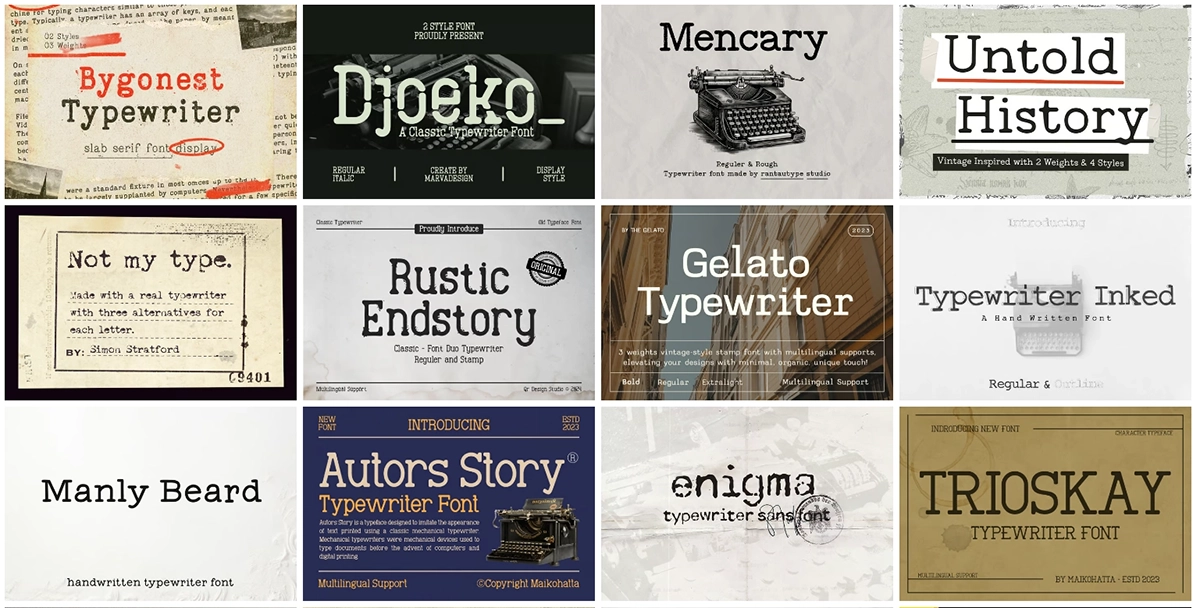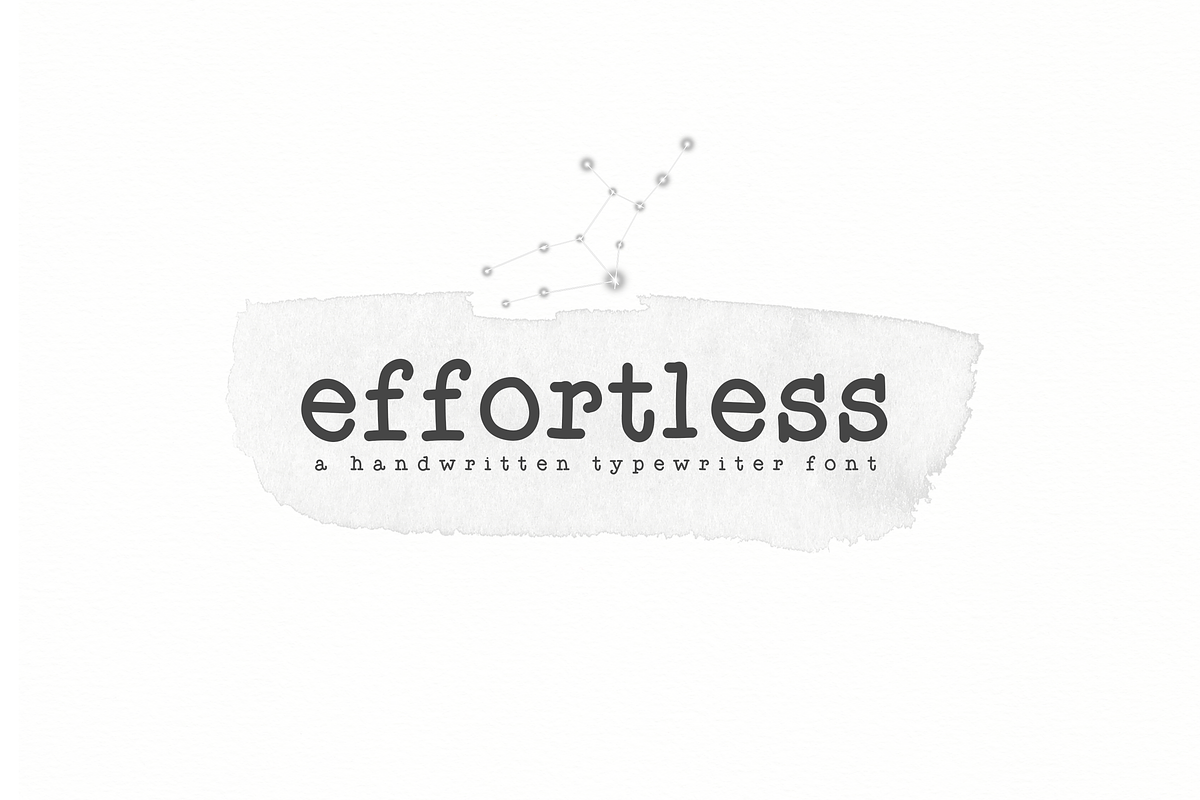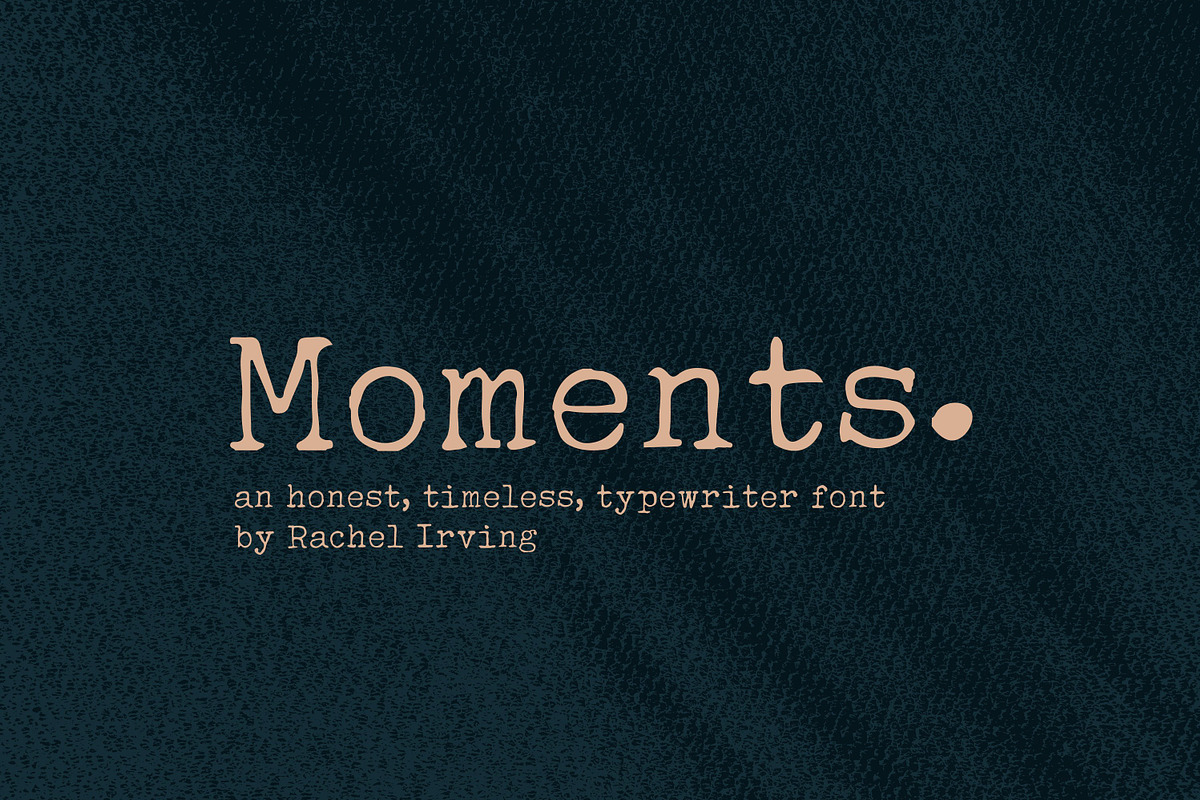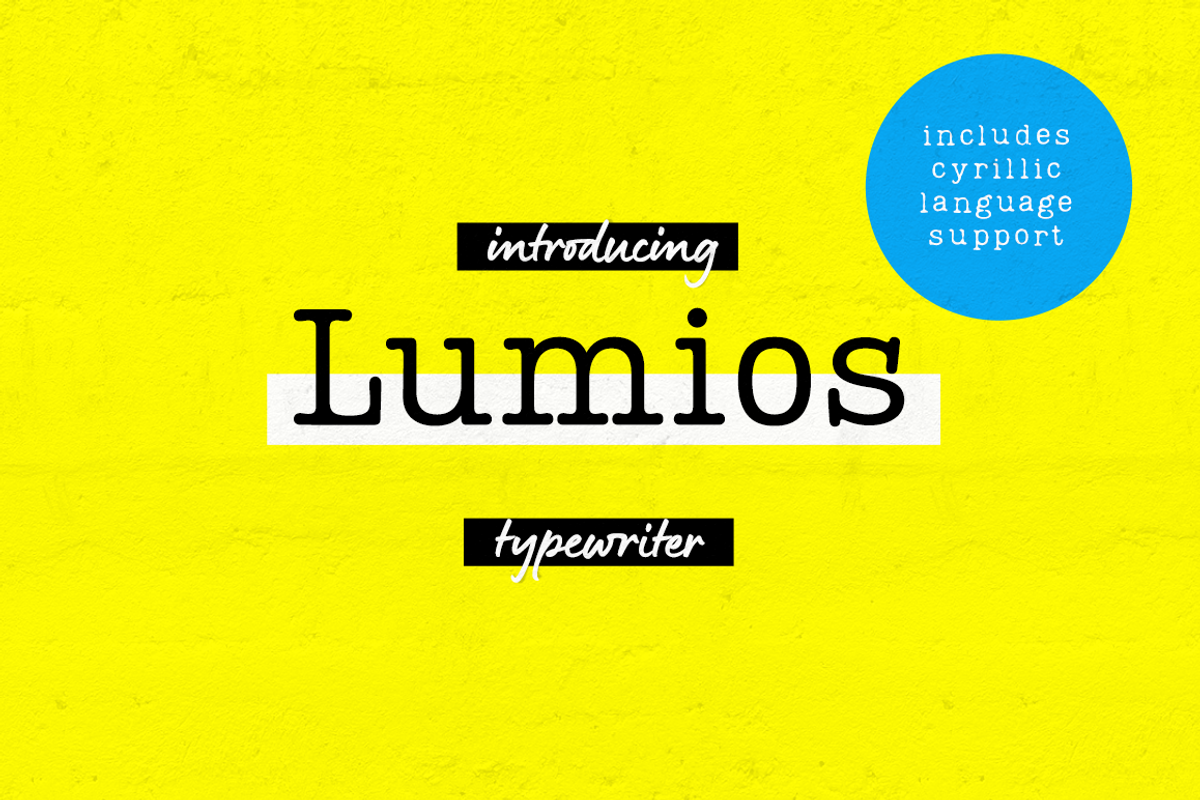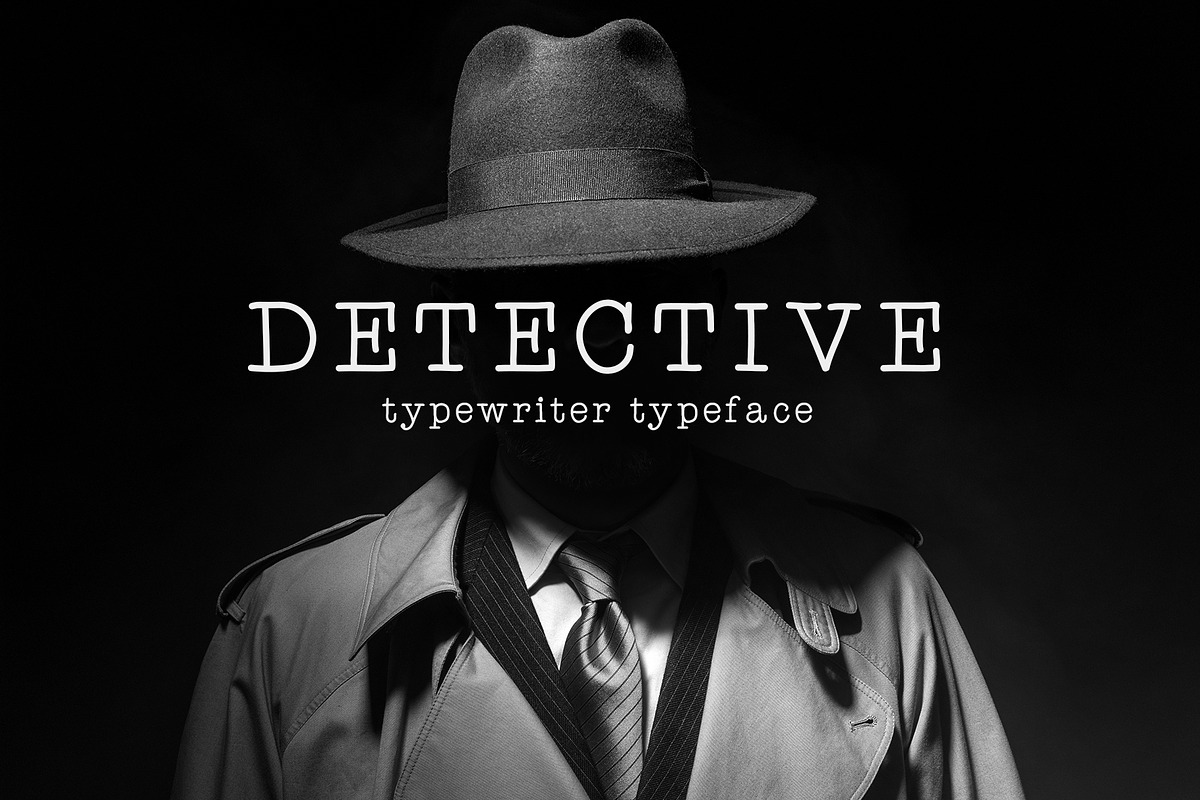
Are you searching for the ultimate typewriter fonts with both nostalgic charm and contemporary appeal? Look no further. Here you will find an incredible collection.
Fonts have evolved in digital design over time into powerful storytelling tools. From billboards to branding, distinctive typefaces are changing how we experience written language; yet even among today’s trendier designs there remains something timeless and nostalgic about typewriter fonts.
In this feature, we’ve selected some of the top typewriter-inspired fonts, which offer both vintage appeal and modern relevance. From classic looks to unique accents, these fonts will ensure that they stand out.
1.Postmark Typewriter
Postmark Typewriter is a contemporary take on classic typewriter font, offering both nostalgia and modernity with its set of ligatures and stylistic alternates that add new life to traditional typewriter aesthetic. With clean edges contrasting against subtle grunge details for added charm in any design that requires nostalgic yet updated aesthetic.
2. Not My Type Typewriter Font
Not My Type Typewriter Font is inspired by vintage typewriters, providing an authentic yet nostalgic appearance. Like its popular Amateur counterpart, Not My Type provides three stylistic variations for each letter for handwritten-like organic feel designs. Equipped with uppercase letters, punctuation marks, numbers and punctuation characters this font is both versatile and user-friendly – ideal for projects looking for retro charm without losing modern convenience.
3. Silk Remington
Silk Remington by Jadugar Design Studio and available through Envato is an elegant typewriter font boasting seven styles – Thin, Regular, Rough Regular, SemiBold Rough-Semi Bold Bold – to suit a range of projects and needs. If versatility is what you seek then Silk Remington should definitely take its place on your list when adding depth and character to any project.
4. Merchant Ledger
Merchant Ledger is a premium typewriter font that blends elegance with classic typewriter feel, creating an elegant yet familiar style perfect for visual materials of any kind. Featuring clean aesthetics and subtle shading irregularities, its sophisticated yet familiar style truly stands out. Especially useful when used for branding projects and advertising collateral projects where its sophisticated yet familiar style stands out!
5. Perfect Thoughts Font Pack
Perfect Thoughts Font Pack offers three distinctive styles: an authentic ink-stamped style for a raw feel; an elegant cleaner version and playful irregular baseline typewriter font – making this versatile trio the ideal addition to any design, be it wedding invitations, Pinterest quotes or social media graphics with retro charm with a sassy edge! Ideal for projects needing that touch of retro charm with a sassy edge!
6. Matches Typeface
Matches Typeface is one of the thicker typewriter fonts available online, making it an excellent choice for various applications. With its bold lines and smudged edges evoking nostalgic vintage imagery – ideal for album covers, social media graphics and marketing materials – Matches Typeface captures classic typewriter text while providing an eye-catching presence that elevates any design project.
7. AMTW
AMTW is a versatile font collection addition that offers three distinct styles–Regular, Rough and Rough-Rough–making it an attractive option. Reminiscent of chalk writing on a board, this typewriter font offers unique yet familiar charm to your designs. From clean look projects to texturally rich projects requiring texture or novelty this typewriter font allows creative freedom in various projects while its novelty yet nostalgia makes it appealing choice for modernizing classic typography.
8. Moments Typewriter Font
Moments Typewriter Font is an “honest and timeless type-written script font,” exuding elegance and nostalgia. Created to capture positive memories and special times, Moments lends warmth and sophistication to projects from publications to branding efforts or social media cards; use it freely to capture moments that add warmth and remember good times in all creative endeavours!
9. Detective
Detective is an original typewriter font with clean lines and uniform letterforms fused with handmade touches for an intriguing contrast of vintage charm with modern typographic aesthetics. Each character was painstakingly designed to represent vintage typewriters while still fitting within modern typographic aesthetics, creating a font which perfectly balances old world elegance with contemporary design – making Detective an excellent choice for branding, editorial design, or creative projects looking for retro charm with contemporary sophistication.
11. Effortless Typewriter Font
Effortless Typewriter Font: This charming handwritten font draws its inspiration from vintage typewriters while maintaining its playful character. With soft curves and short edges evoking nostalgia without directly resembling typing machines, Effortless lends warmth and lighthearted charm to designs for children as well as warm quotes on Pinterest – ideal for child-friendly projects and warm Pinterest quotes alike! Perfect for child-friendly designs as well as any project needing an inviting and cozy feeling such as social media graphics or creative branding projects alike Effortless captures its essence perfectly while modern uses this font does just that – giving your project that vintage feeling you need!